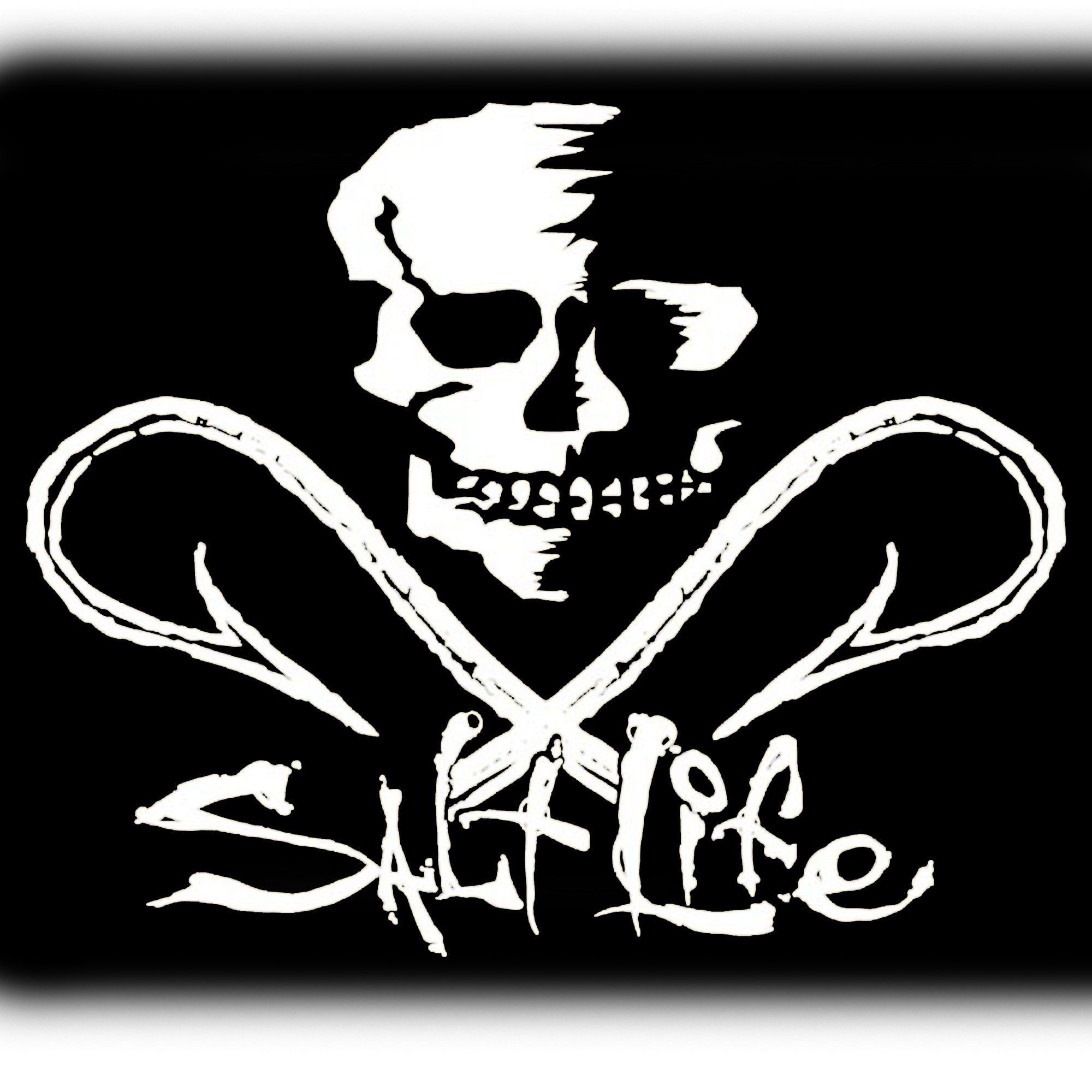
Font Similar To Salt Life Logo . Enter your text, select a font, choose a font size, and. i use creepy, its fairly similar, although not quite a bold. salt life font is chiller font. Salt life is basically an american base clothing brand deals in. salt life font is a beautiful and fancy typeface. Many designers are looking forward to this font which used in. moreover, the salt life logo use in stickers and tattoos industries. They thickened some of the letters flipped some backward ect. moreover, the salt life logo use in stickers and tattoos industries. use our free salt life font generator tool below to create your own custom design logo or image. Many designers are looking forward to this font which used in. I've also heard of a font called pepper death, but can't find it. salt life font is a perfectly attractive and fancy typeface. Just modified it a bit.
They thickened some of the letters flipped some backward ect. salt life font is a perfectly attractive and fancy typeface. Many designers are looking forward to this font which used in. salt life font is chiller font. moreover, the salt life logo use in stickers and tattoos industries. salt life font is a beautiful and fancy typeface. I've also heard of a font called pepper death, but can't find it. Salt life is basically an american base clothing brand deals in. moreover, the salt life logo use in stickers and tattoos industries. Enter your text, select a font, choose a font size, and.
Font Similar To Salt Life Logo Salt life is basically an american base clothing brand deals in. Many designers are looking forward to this font which used in. i use creepy, its fairly similar, although not quite a bold. salt life font is a perfectly attractive and fancy typeface. Salt life is basically an american base clothing brand deals in. They thickened some of the letters flipped some backward ect. moreover, the salt life logo use in stickers and tattoos industries. salt life font is a beautiful and fancy typeface. I've also heard of a font called pepper death, but can't find it. Many designers are looking forward to this font which used in. Just modified it a bit. moreover, the salt life logo use in stickers and tattoos industries. use our free salt life font generator tool below to create your own custom design logo or image. salt life font is chiller font. Enter your text, select a font, choose a font size, and.
Salt Life Logo Vector at Collection of Salt Life Logo Font Similar To Salt Life Logo salt life font is chiller font. Many designers are looking forward to this font which used in. Salt life is basically an american base clothing brand deals in. Enter your text, select a font, choose a font size, and. moreover, the salt life logo use in stickers and tattoos industries. use our free salt life font generator. Font Similar To Salt Life Logo.
Salt life logo by DracoAwesomeness on DeviantArt Font Similar To Salt Life Logo They thickened some of the letters flipped some backward ect. moreover, the salt life logo use in stickers and tattoos industries. use our free salt life font generator tool below to create your own custom design logo or image. Salt life is basically an american base clothing brand deals in. Just modified it a bit. Many designers are. Font Similar To Salt Life Logo.
Salt Life Logo Vector at GetDrawings Free download Font Similar To Salt Life Logo salt life font is chiller font. They thickened some of the letters flipped some backward ect. i use creepy, its fairly similar, although not quite a bold. Enter your text, select a font, choose a font size, and. Many designers are looking forward to this font which used in. salt life font is a perfectly attractive and. Font Similar To Salt Life Logo.
Salt Life Logo Salt Life Decal With Hibiscus And Surf Boards, HD Png Font Similar To Salt Life Logo salt life font is a perfectly attractive and fancy typeface. Salt life is basically an american base clothing brand deals in. Just modified it a bit. use our free salt life font generator tool below to create your own custom design logo or image. Enter your text, select a font, choose a font size, and. I've also heard. Font Similar To Salt Life Logo.
Salt life Logos Salt life decals, Salt life stickers, Life logo Font Similar To Salt Life Logo moreover, the salt life logo use in stickers and tattoos industries. Salt life is basically an american base clothing brand deals in. moreover, the salt life logo use in stickers and tattoos industries. use our free salt life font generator tool below to create your own custom design logo or image. Just modified it a bit. . Font Similar To Salt Life Logo.
Salt Life Font Svg Love Heart Candy Font Font Similar To Salt Life Logo Many designers are looking forward to this font which used in. salt life font is a perfectly attractive and fancy typeface. moreover, the salt life logo use in stickers and tattoos industries. salt life font is a beautiful and fancy typeface. Just modified it a bit. moreover, the salt life logo use in stickers and tattoos. Font Similar To Salt Life Logo.
🔥 [49+] Salt Life Wallpapers WallpaperSafari Font Similar To Salt Life Logo salt life font is chiller font. moreover, the salt life logo use in stickers and tattoos industries. They thickened some of the letters flipped some backward ect. Many designers are looking forward to this font which used in. I've also heard of a font called pepper death, but can't find it. Just modified it a bit. Enter your. Font Similar To Salt Life Logo.
Salt Life Logo Vector at Collection of Salt Life Logo Font Similar To Salt Life Logo moreover, the salt life logo use in stickers and tattoos industries. Enter your text, select a font, choose a font size, and. salt life font is chiller font. Many designers are looking forward to this font which used in. salt life font is a perfectly attractive and fancy typeface. moreover, the salt life logo use in. Font Similar To Salt Life Logo.
Salt Life Font Dfonts Font Similar To Salt Life Logo Many designers are looking forward to this font which used in. salt life font is a beautiful and fancy typeface. Many designers are looking forward to this font which used in. use our free salt life font generator tool below to create your own custom design logo or image. I've also heard of a font called pepper death,. Font Similar To Salt Life Logo.